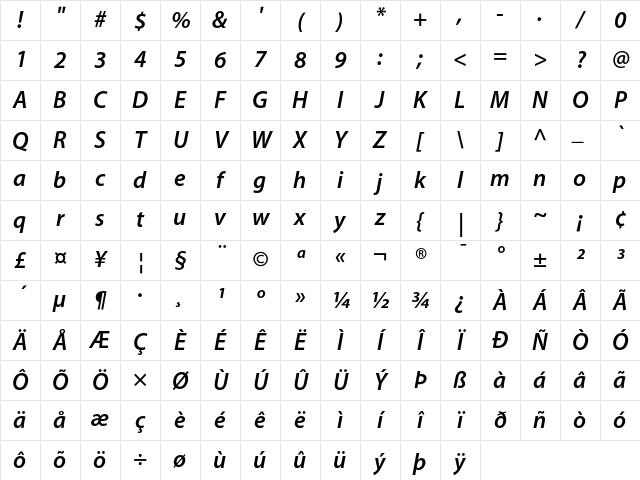
Adobe Corporate ID Myriad Semibold Italic
Style: Myriad Semibold Italic
Complete Adobe Corporate ID Myriad Semibold Italic glyph index. Displaying only characters natively supported by Adobe Corporate ID Myriad Semibold Italic font.
Design Context for Adobe Corporate ID
Adobe Corporate ID is a composed and adaptable typeface that performs quietly and consistently across a wide range of design contexts. The slanted form adds forward momentum and visual energy. Its bold stroke weight gives it real presence on the page.
Pro Tip: Use Adobe Corporate ID for emphasis, pull quotes, and subheadings where its slanted energy can add rhythm to the layout.